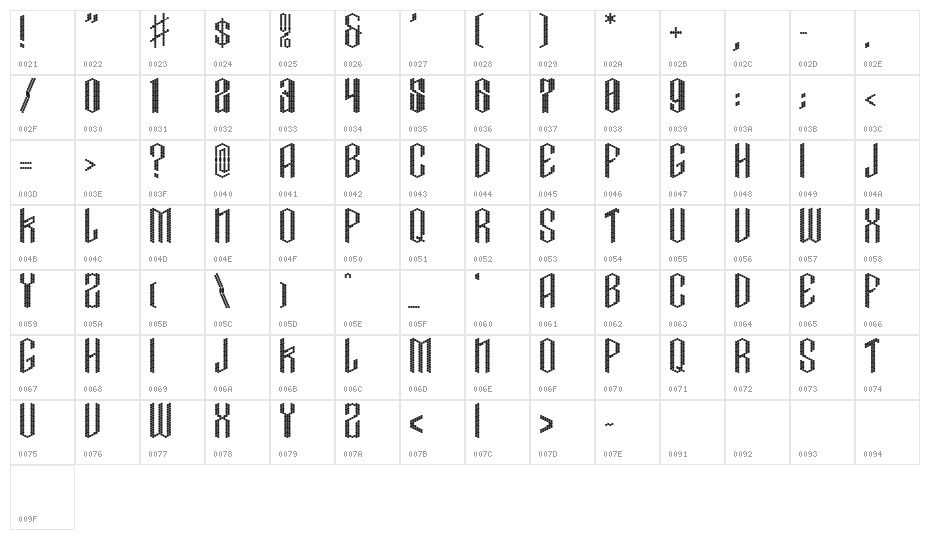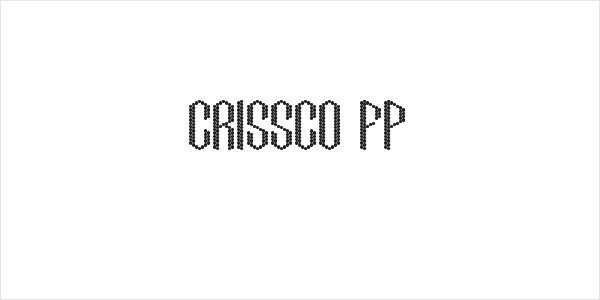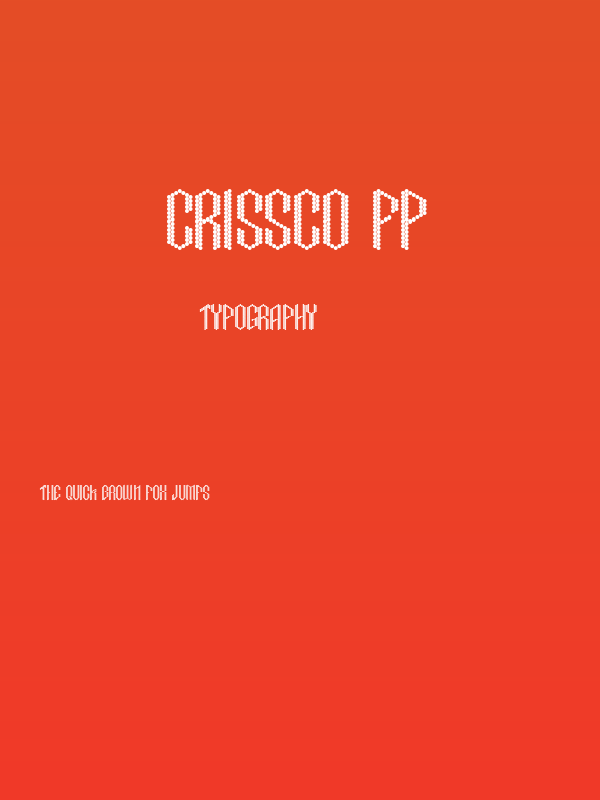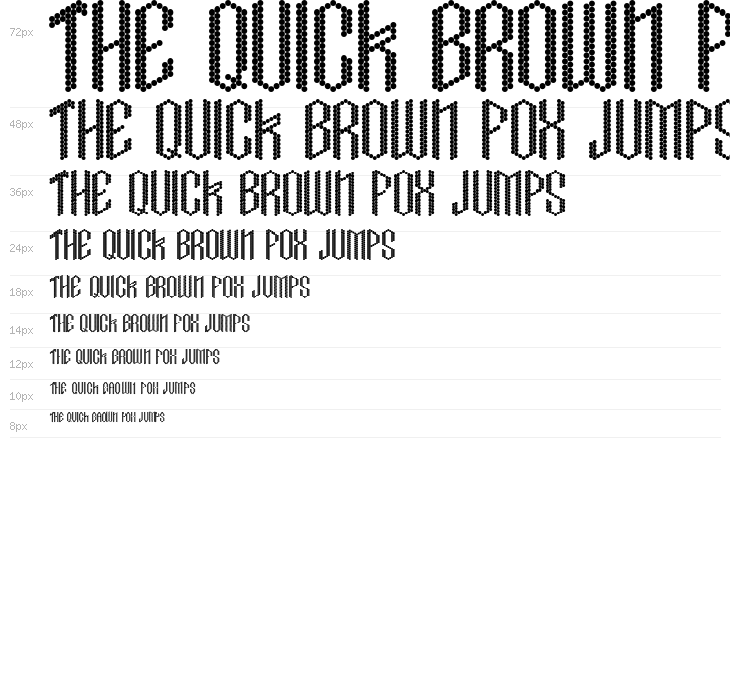
Crissco FP Font
Crissco FP Description
This font features a unique and eye-catching design composed entirely of small, uniform dots arranged to form each character. The geometric structure gives it a modern and digital feel, reminiscent of LED displays or pixel art. Each letter and number is clearly defined, with consistent spacing and alignment, creating a cohesive and organized appearance. The use of dots adds a playful yet structured aesthetic, making it suitable for creative and contemporary projects. The font maintains readability despite its unconventional style, ensuring that it can be used effectively in various design contexts.
| Proposed Projects | Ideal for digital art, tech-themed designs, modern posters, and creative branding projects. |